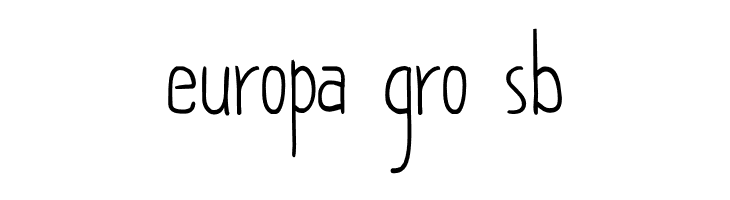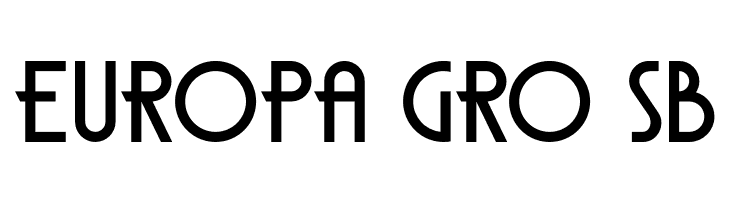
A playful, handwritten font with tall, narrow characters and a whimsical style.
A geometric, art deco-inspired font with bold, angular forms and a modern vintage appeal.
A playful, crayon-textured font with a hand-drawn appearance.